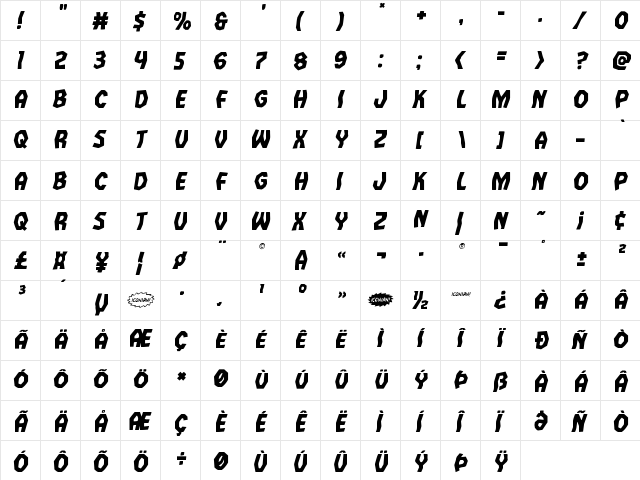
Vampire Bride Staggered Italic Italic
Design Context for Vampire Bride Staggered Italic Typeface
Vampire Bride Staggered Italic is a composed and adaptable typeface that performs quietly and consistently across a wide range of design contexts. The slanted form adds forward momentum and visual energy.
Pro Tip: Try Vampire Bride Staggered Italic for annotation and caption copy alongside an upright companion — the contrast in angle creates a dynamic but ordered typographic system.